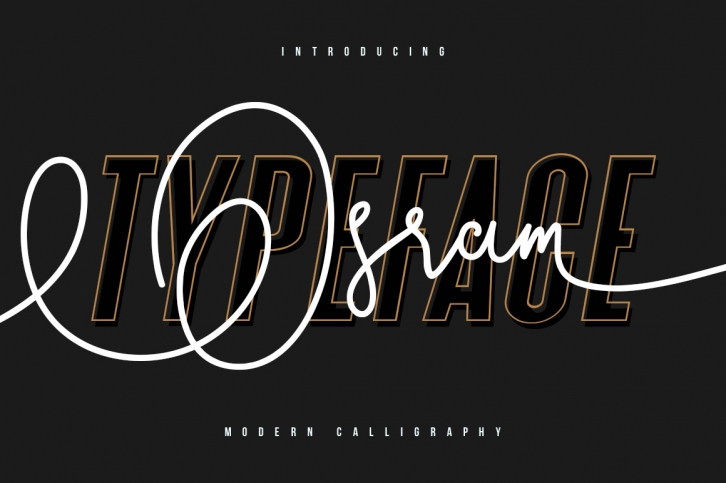
Osram Typeface is a trendy and unique font with an authentic style. It was designed by Maulana Creative and it's a great choice for creative people who need such a font. It was released on September 19, 2018 and the file size is 19.13 MB. Osram Typeface will add an organic vibe to any design idea!